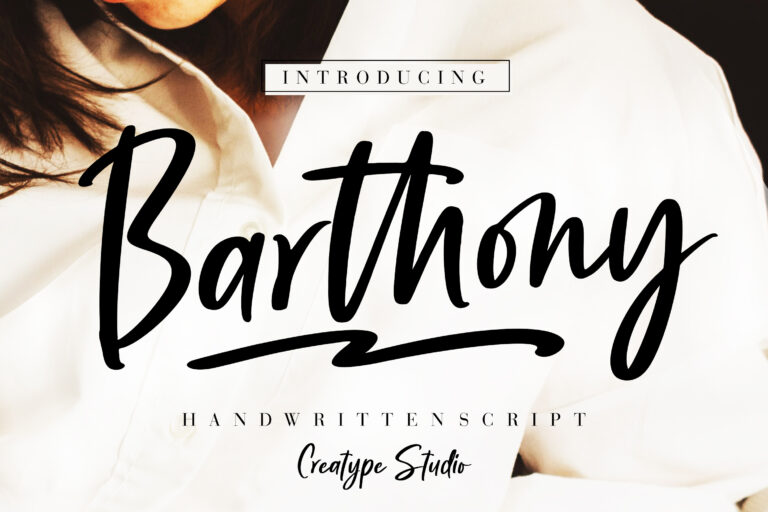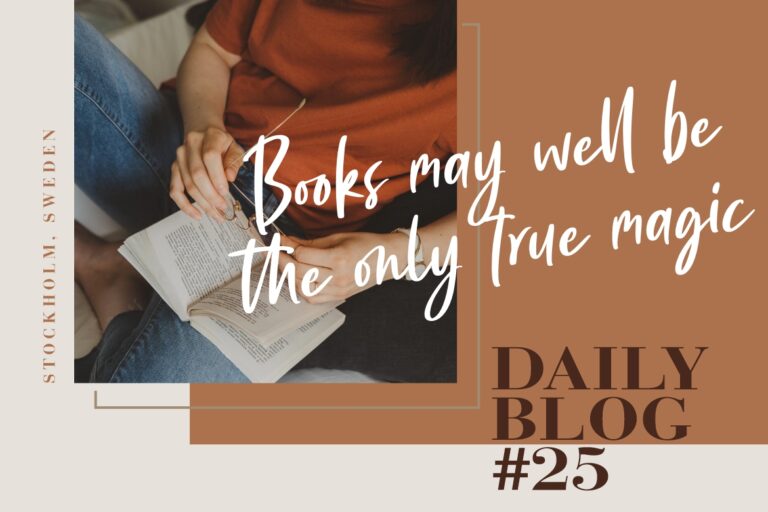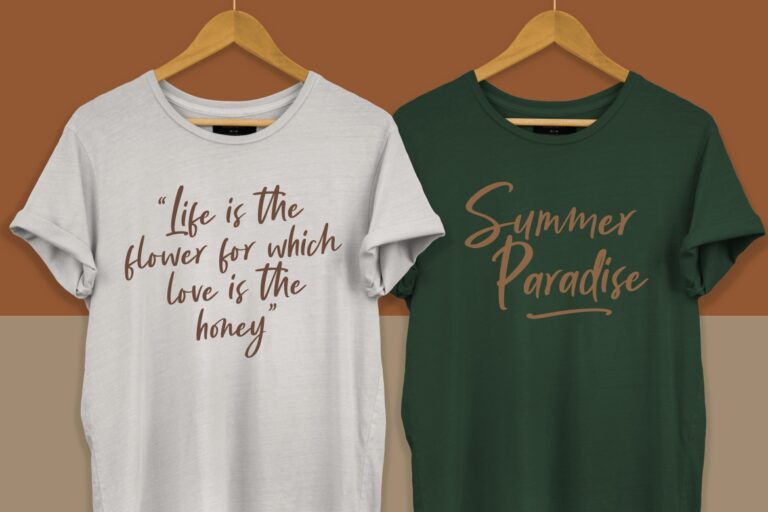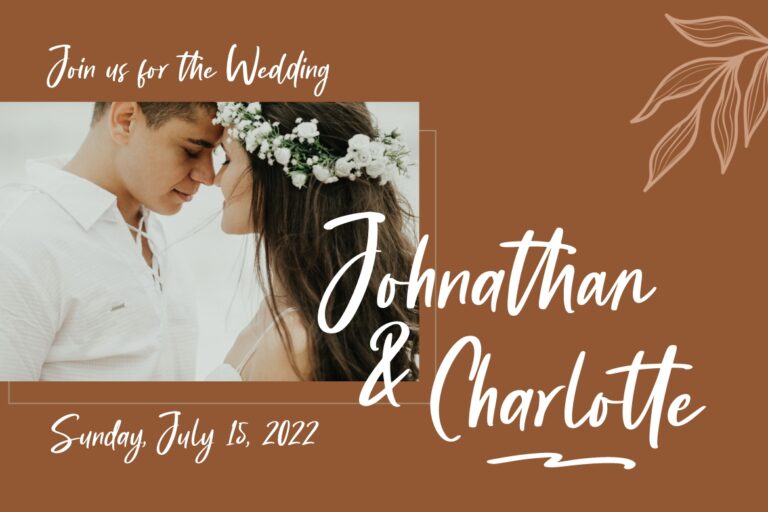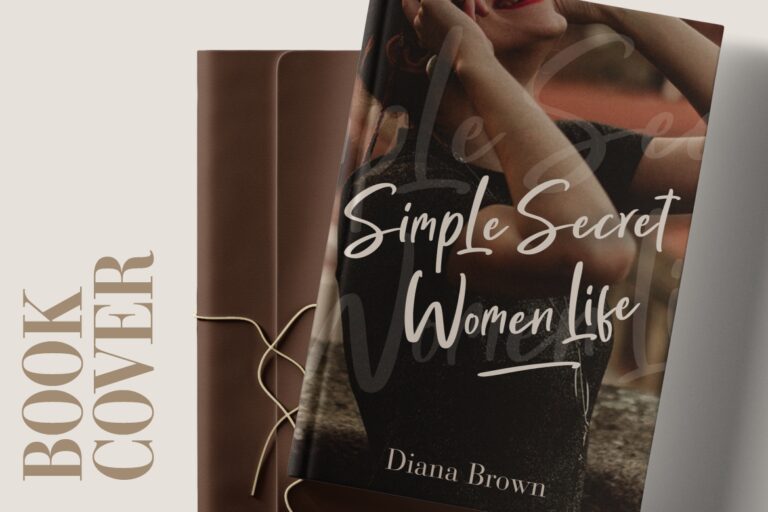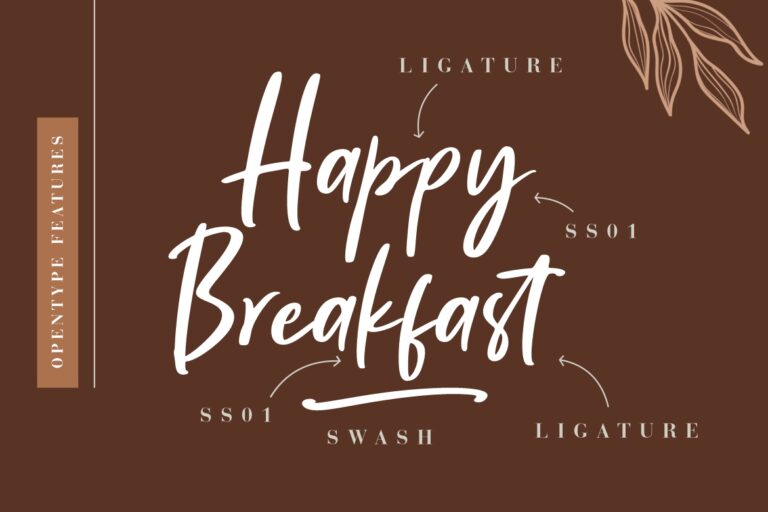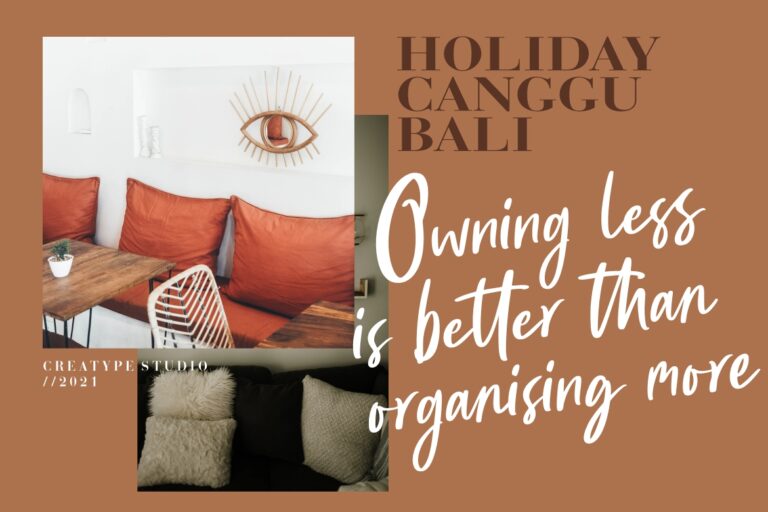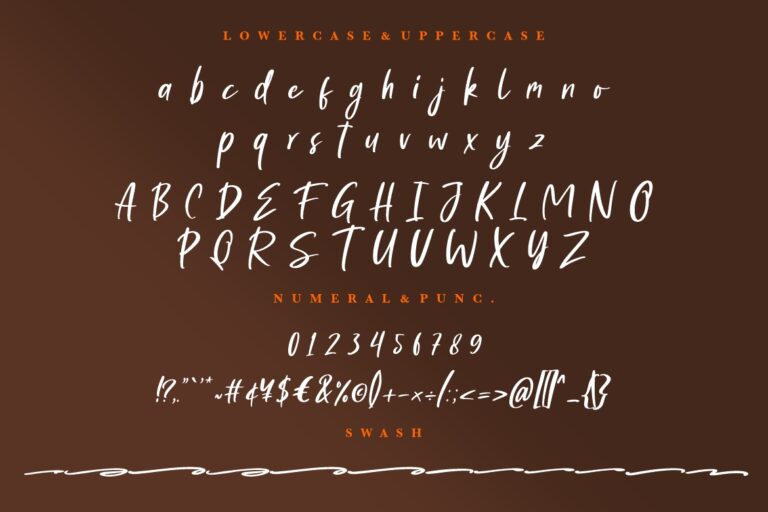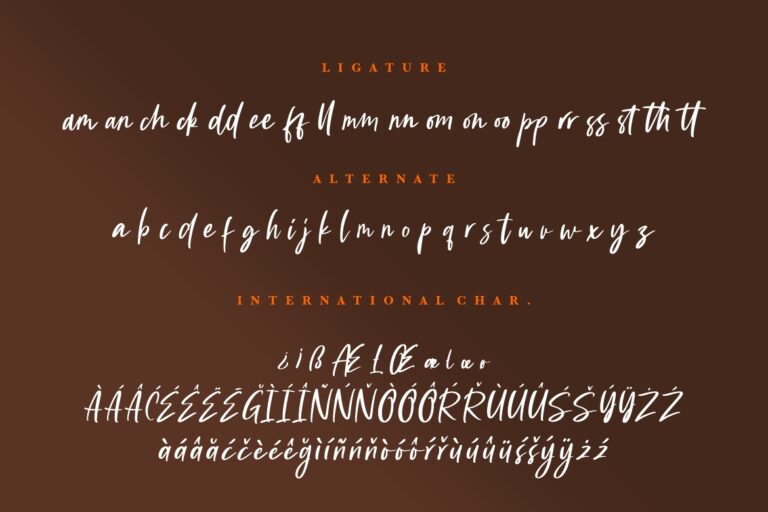
Barthony Handwritten Script
Barthony is a handwriting script font that looks very modern and stylish.
Barthony is perfect for branding projects, logo, wedding designs, social media posts, advertisements, product packaging, product designs, label, photography, watermark, invitation, stationery and any projects that need handwriting taste.